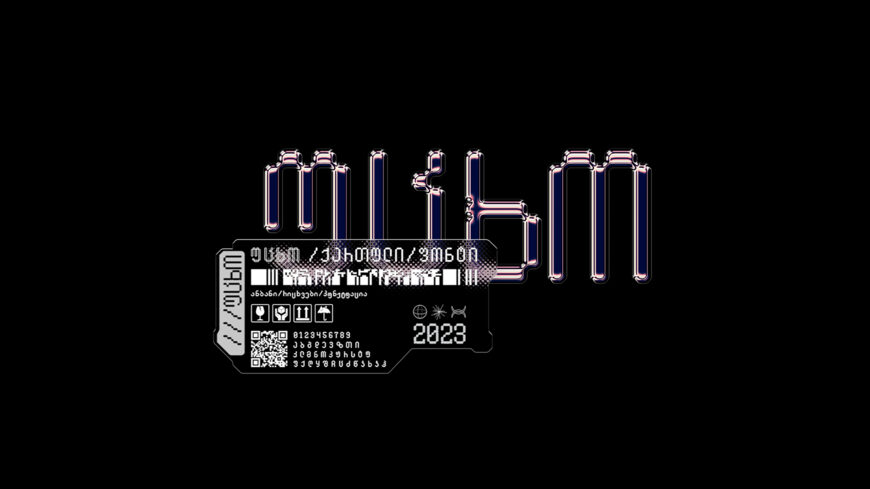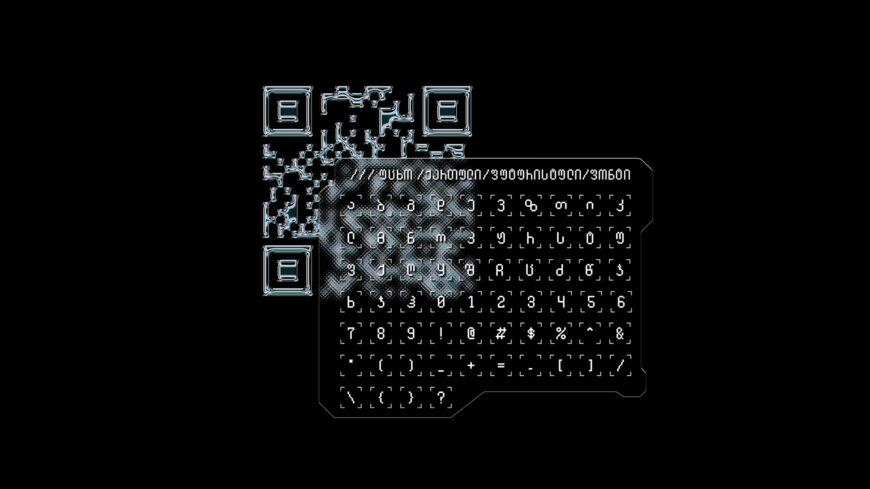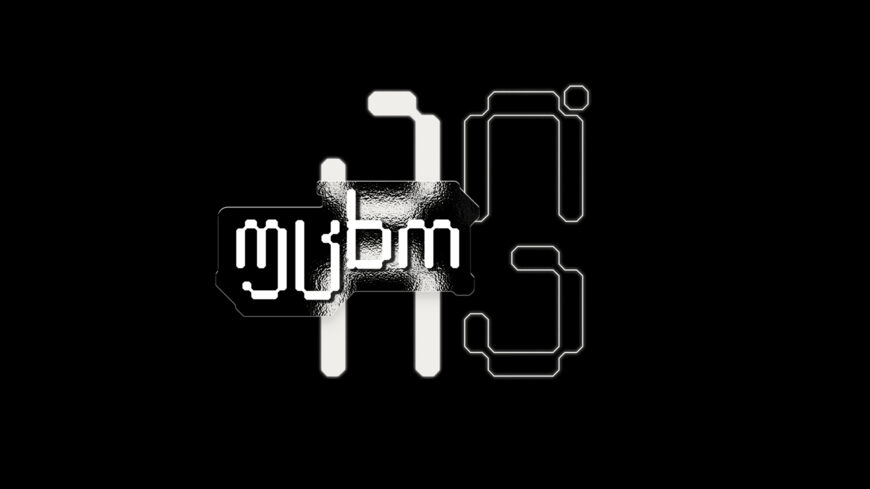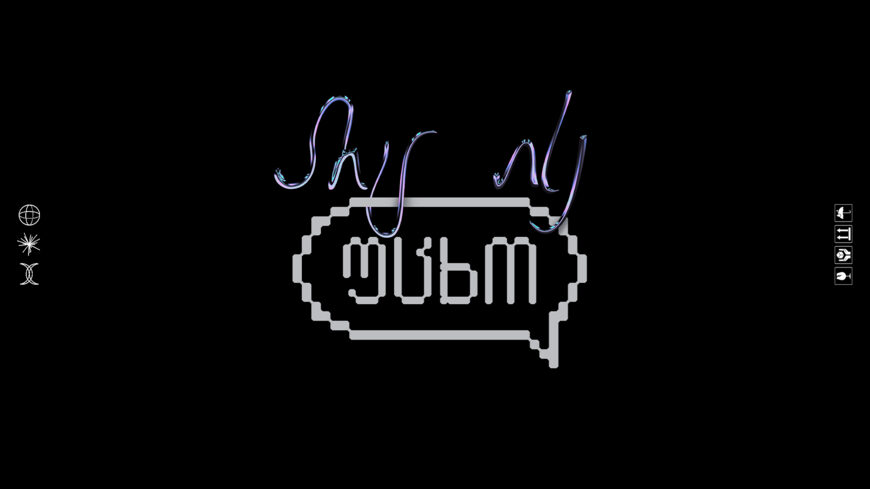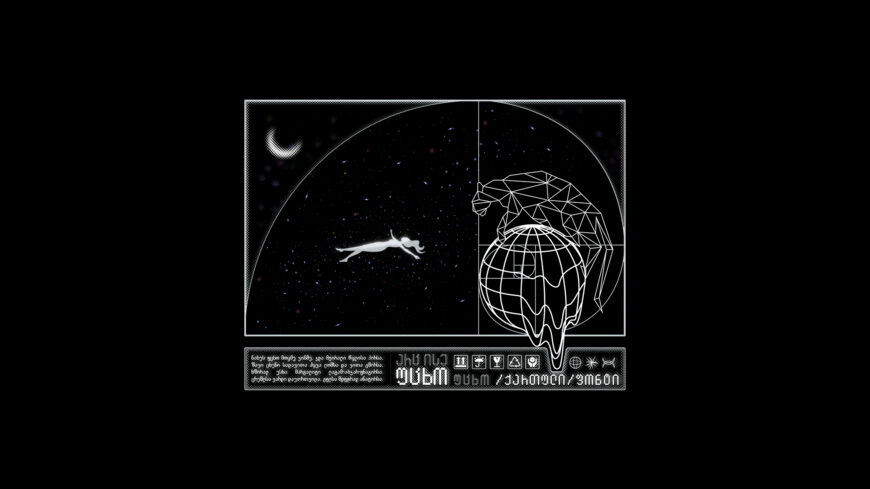
Utskho is a futuristic, sci-fi-inspired Georgian typeface designed by Lunasa. Blending digital aesthetic elements with modular structures, it features blocky, pixelated, and metallic character forms alongside futuristic symbols and numbers.
Its distinct cybernetic feel makes it ideal for experimental graphic design, poster art, high-tech branding, and digital media project displays. Includes Regular, Caps, and Caps Outline.